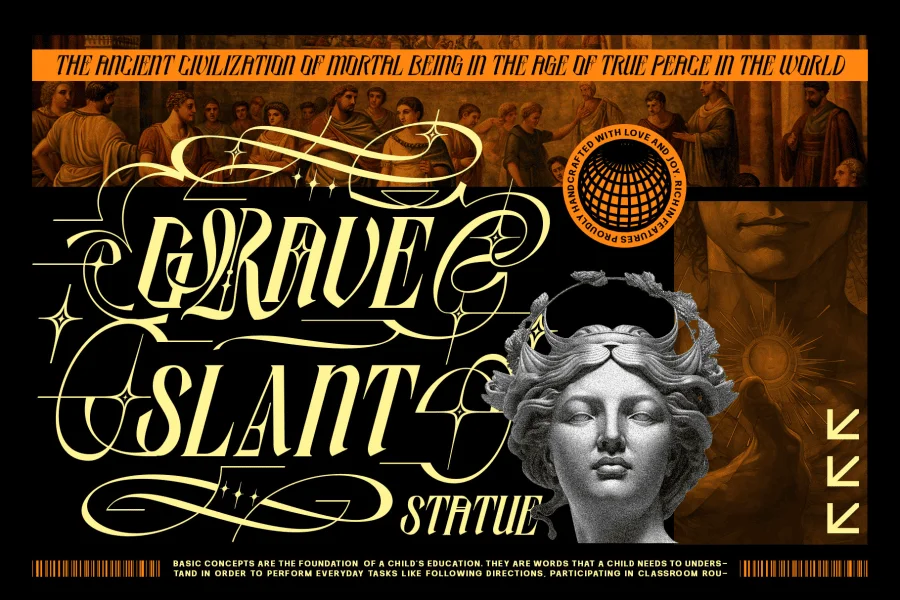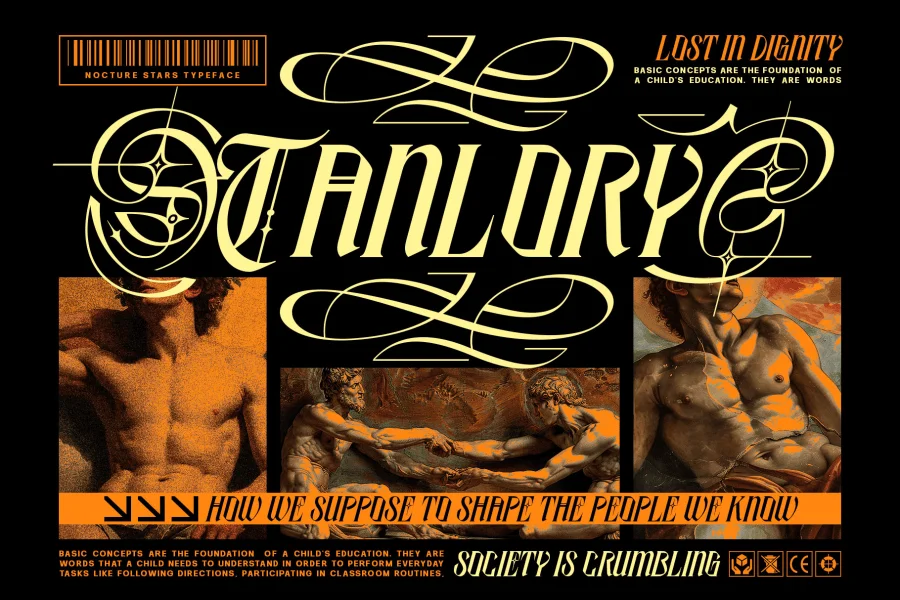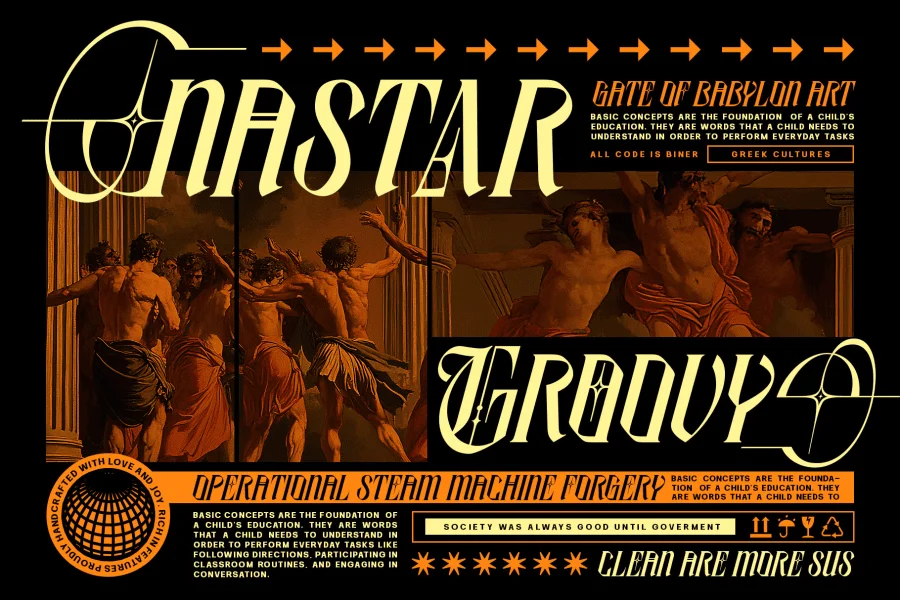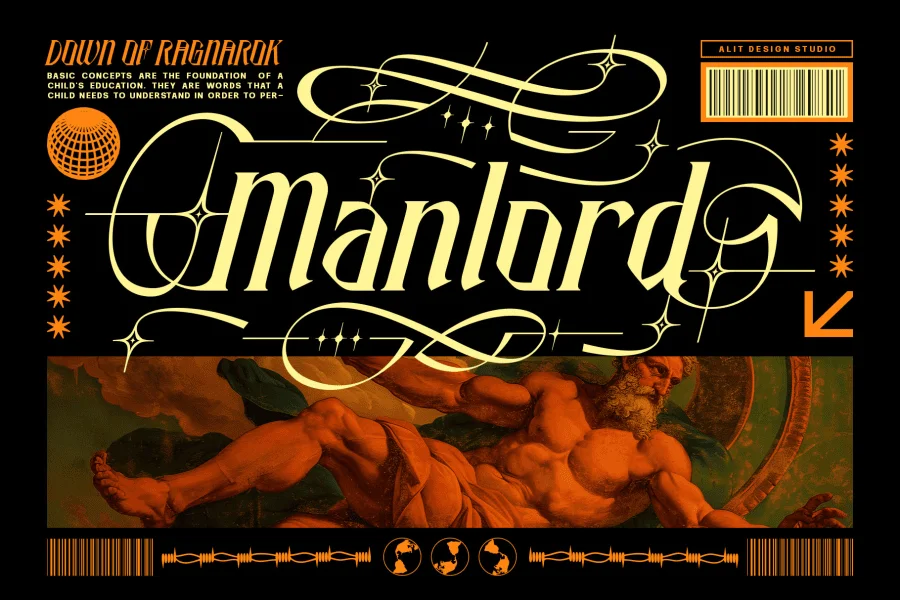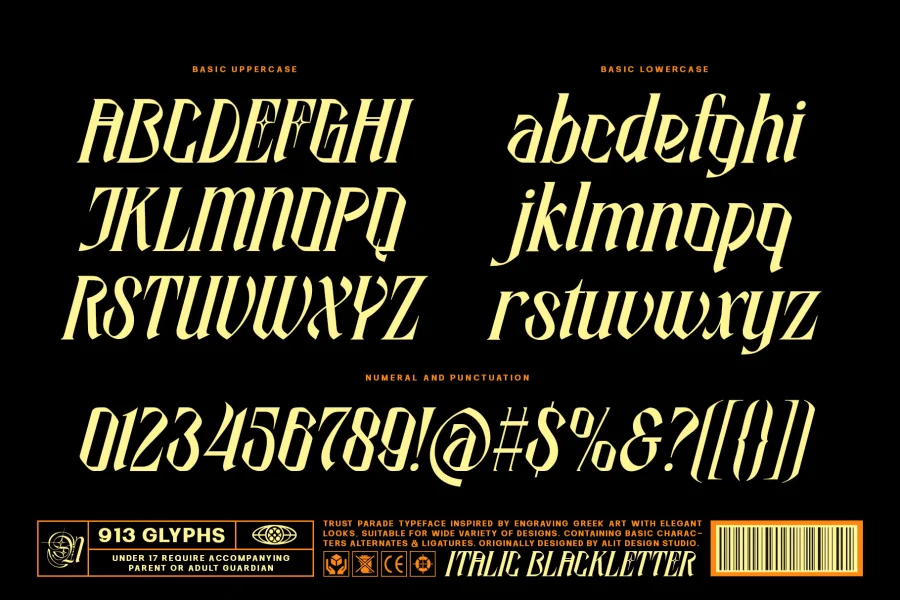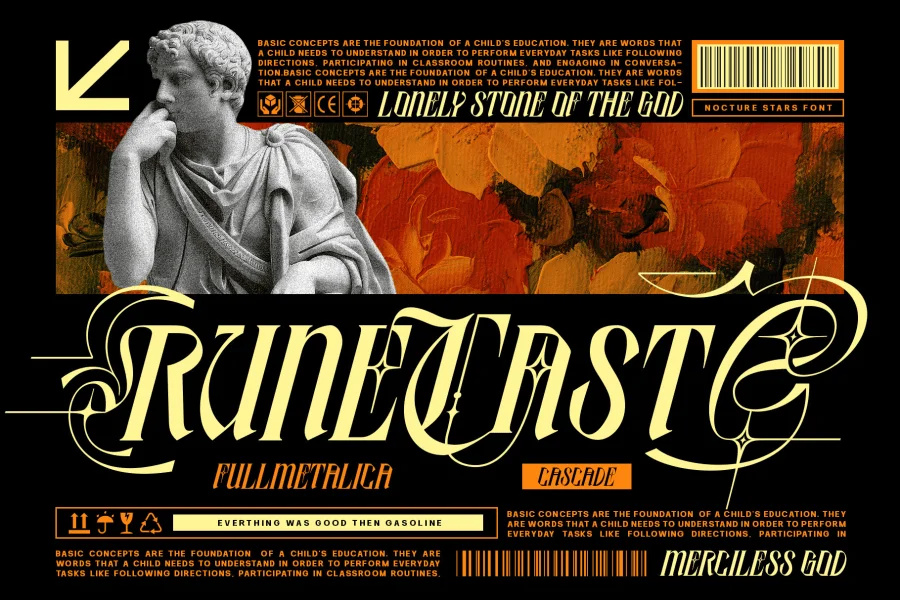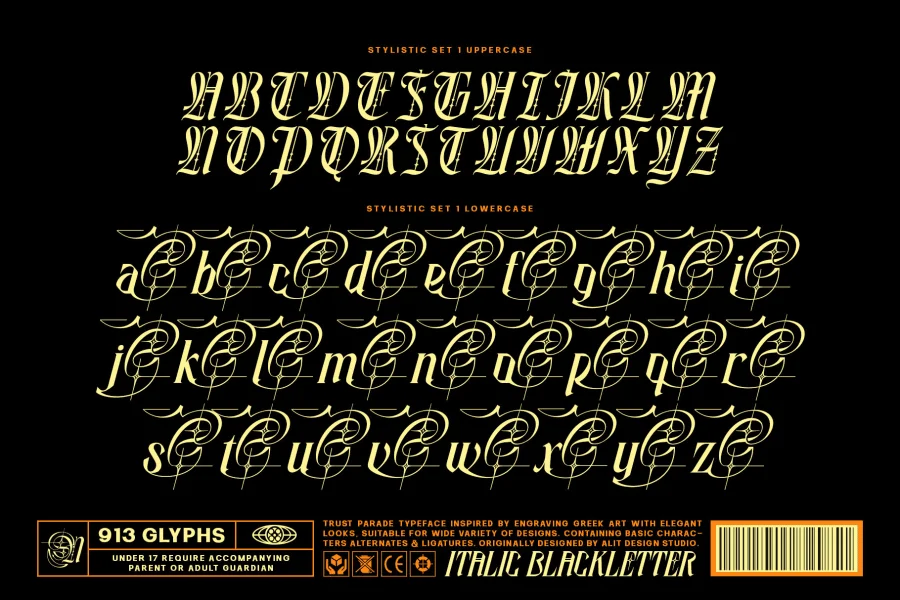
Where Ancient Heritage Meets Modern Rebellion.
Introducing Nocture Stars, a typeface that defies the boundaries of time. Inspired by the intricate precision of engraving Greek art and the dark romance of the medieval era, this font is a bold fusion of history and contemporary streetwear culture.
Nocture Stars is not just a font; it is a visual statement. It takes the rigid structure of classic Blackletter gothic scripts and injects it with a dynamic, italicized speed. The result is a "Trust Parade" typeface that feels aggressive yet elegant, sharp yet fluid—perfect for designs that demand attention.